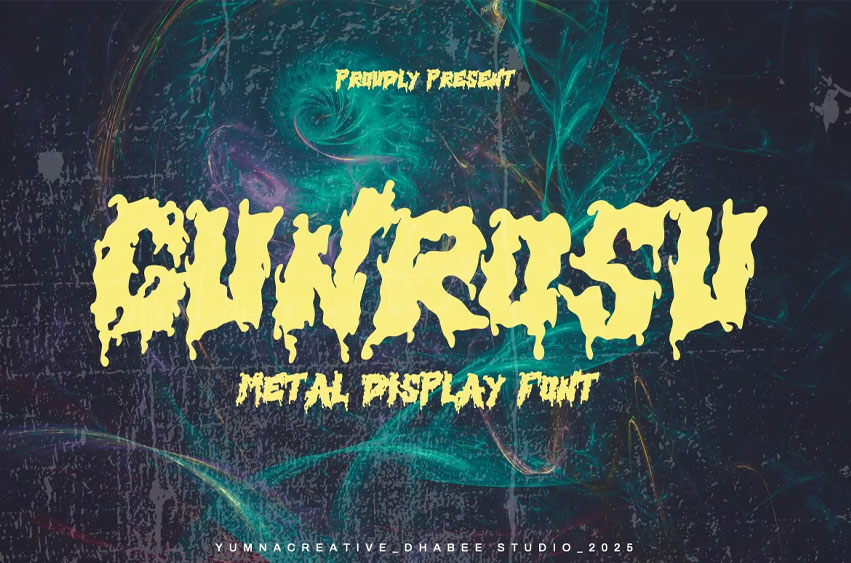
Gunrosu Font
Gunrosu Font is a delicate, elegant, and flowing handwritten typeface. It features beautiful and unique ligatures, allowing authors to create compositions with stylish swirls. This modern font is designed to make a statement, adding an elegant and distinctive flair to your next design project. Incorporate it into your most creative ideas and watch as they come to life!